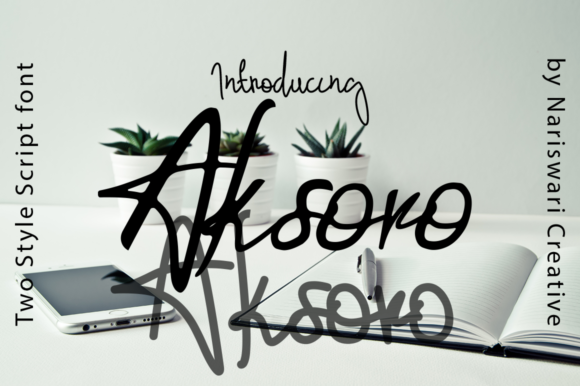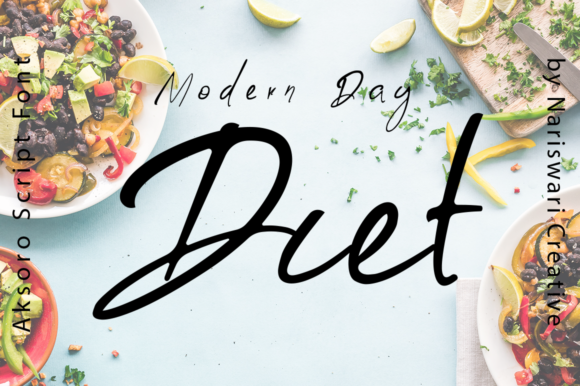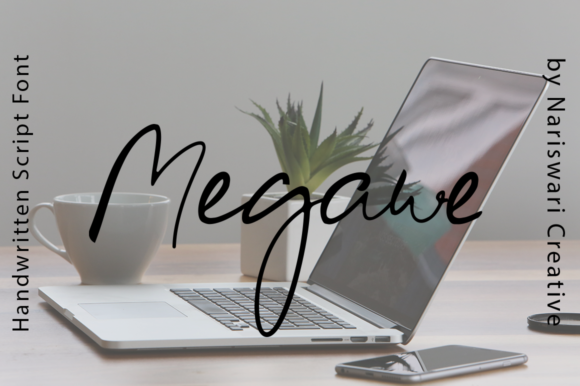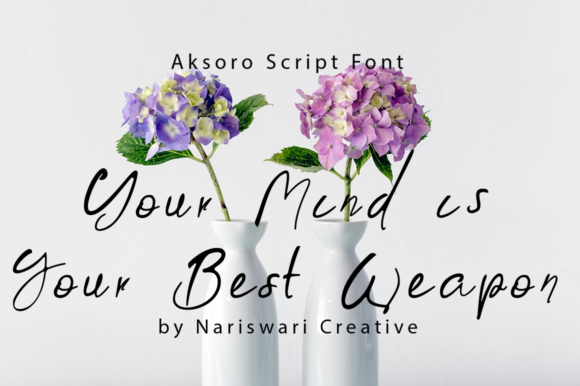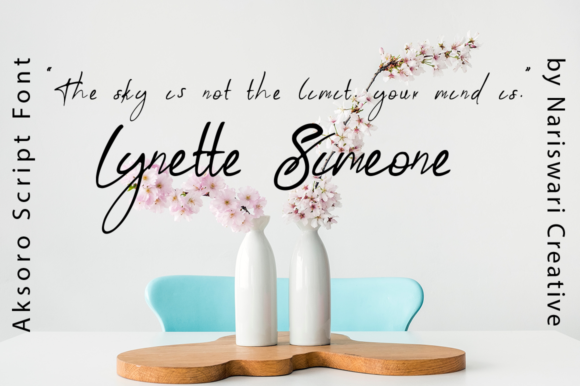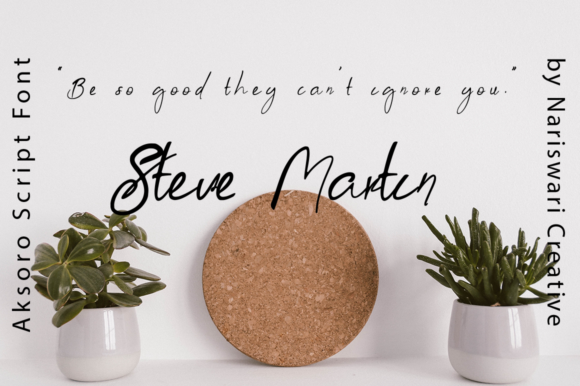
Aksoro Font
About Aksoro Font
Aksoro is a elegant handwritten font, carefully handcrafted to become a true favorite. This font is the perfect fit for all of your logos, branding, social media, and crafty DIY projects.